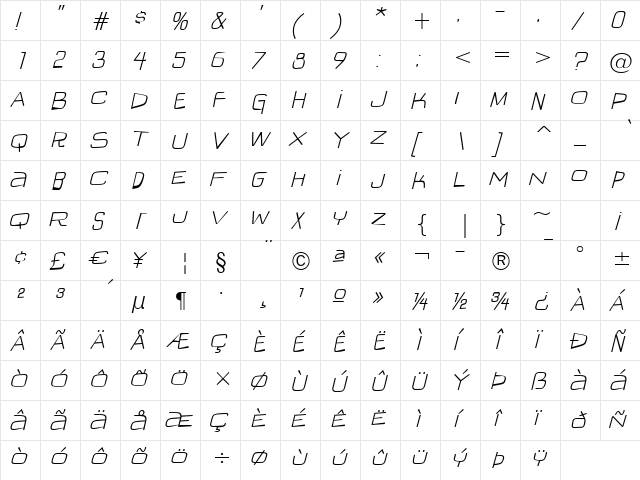
IguanaLover BTN Lt Oblique
Design Context for IguanaLover BTN Lt Typeface
IguanaLover BTN Lt is a composed and adaptable typeface that performs quietly and consistently across a wide range of design contexts. Its italic angle brings a sense of urgency and motion to the letterforms. Its slender proportions lend an understated elegance to any composition.
Pro Tip: Use IguanaLover BTN Lt for emphasis, pull quotes, and subheadings where its slanted energy can add rhythm to the layout.